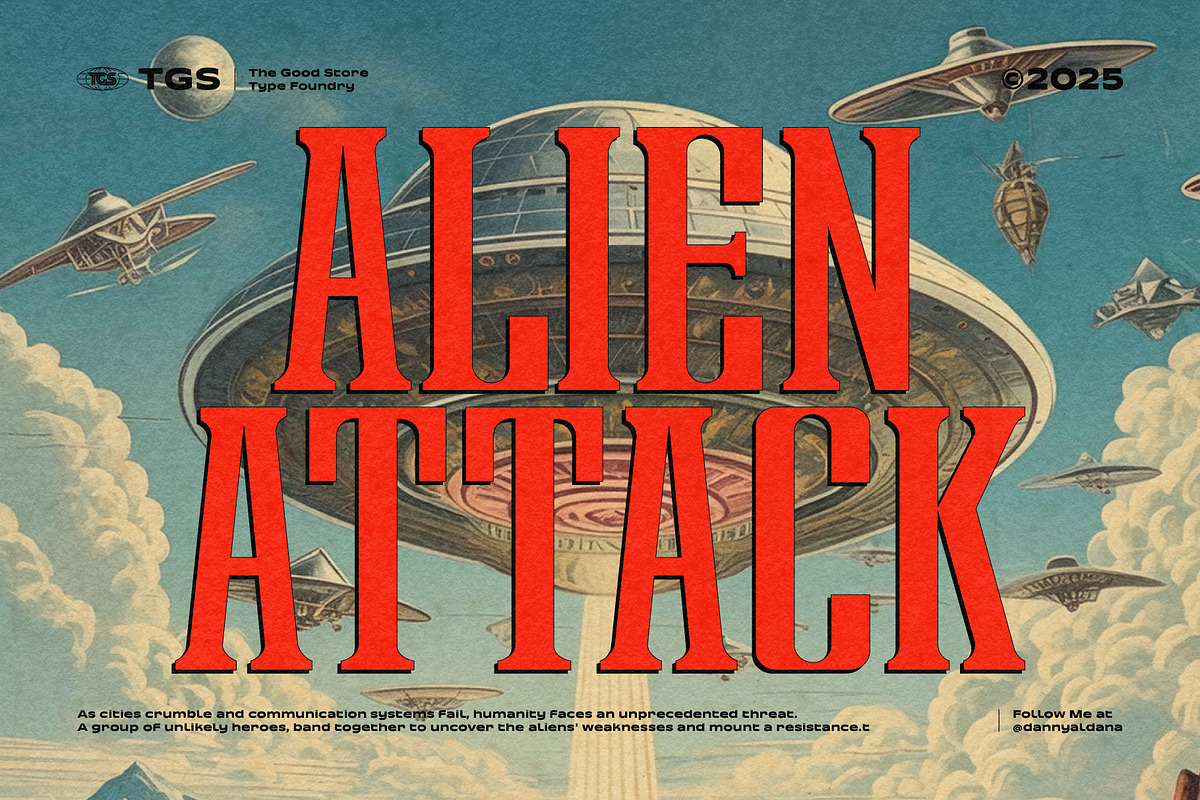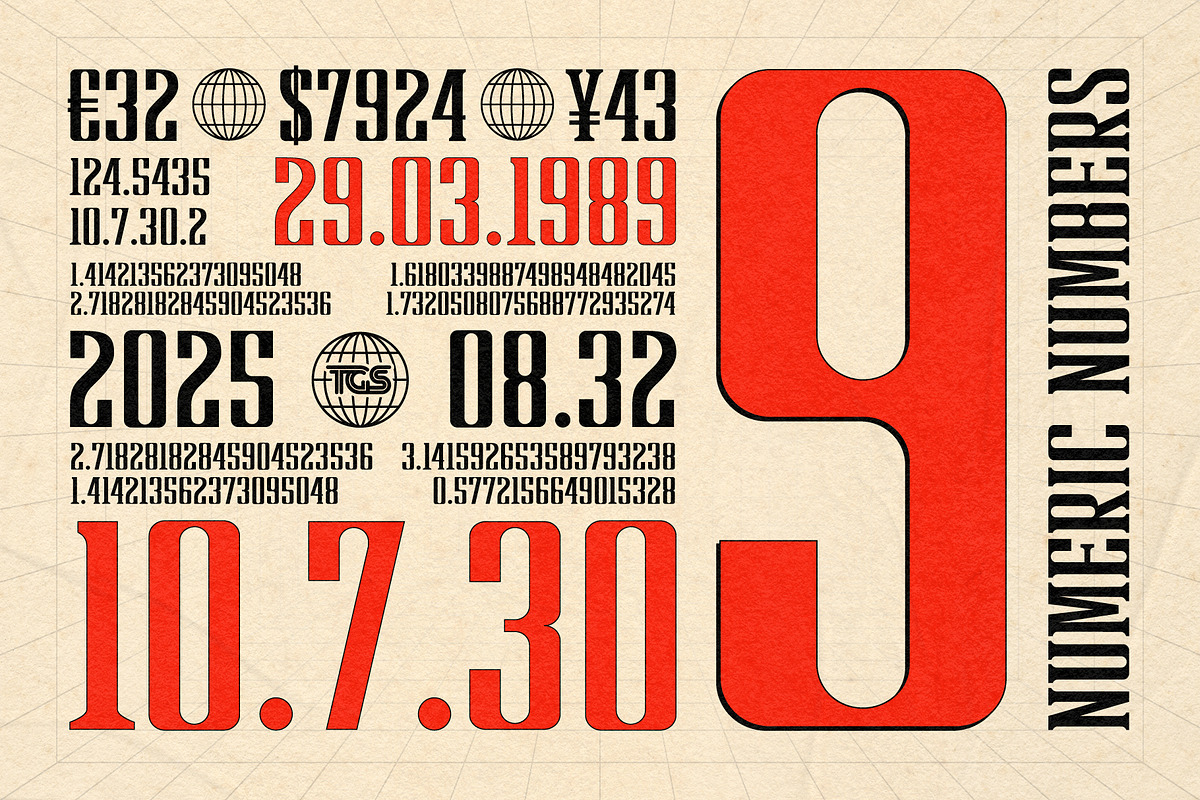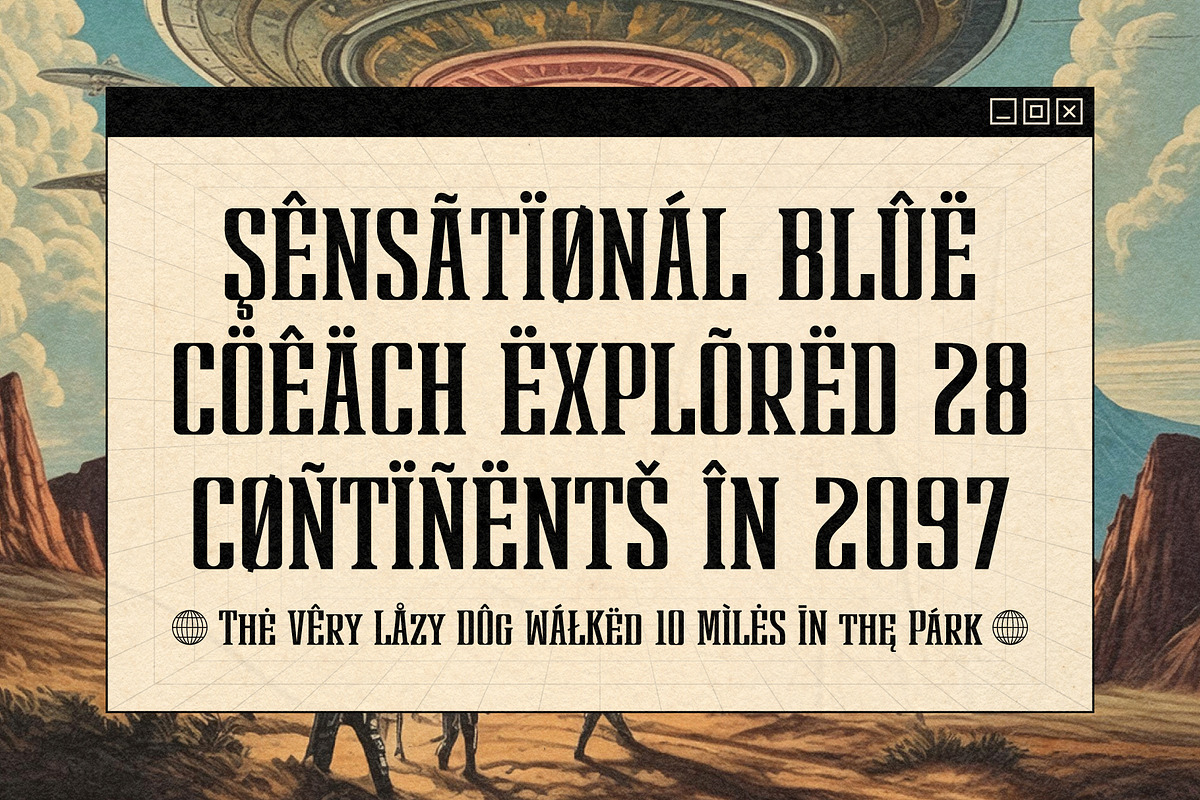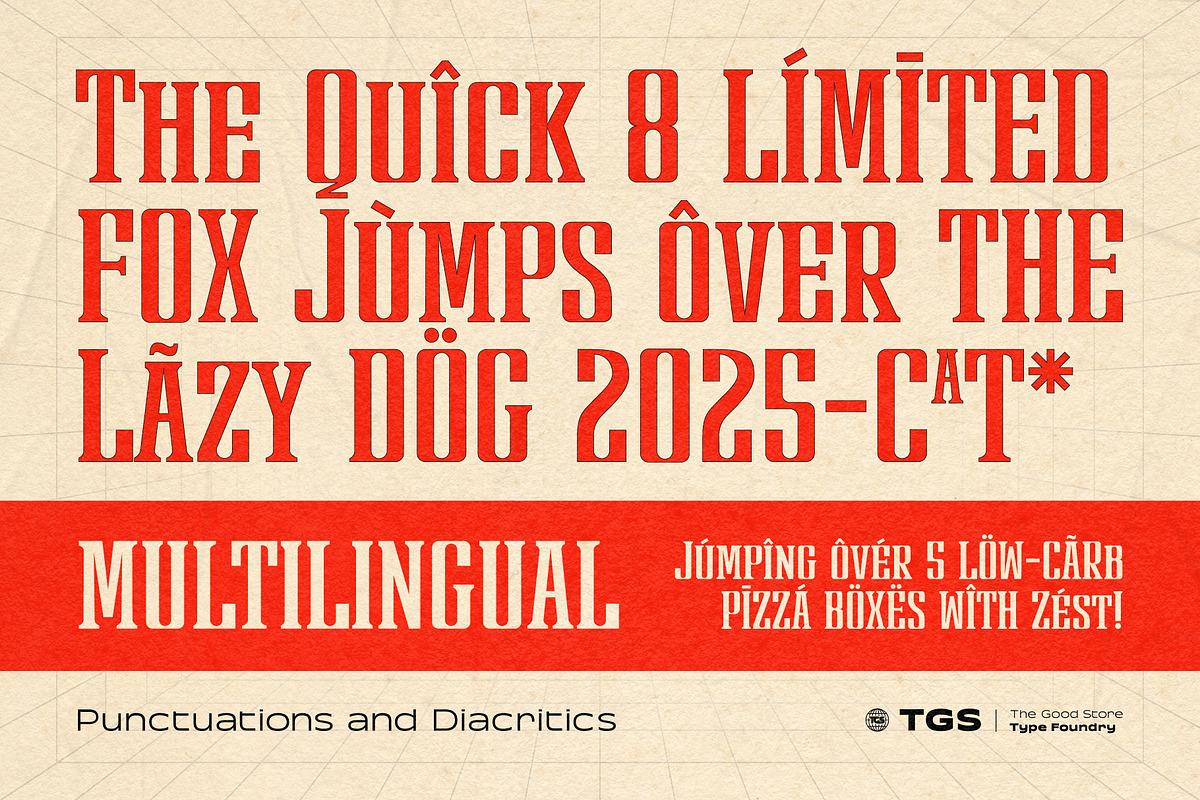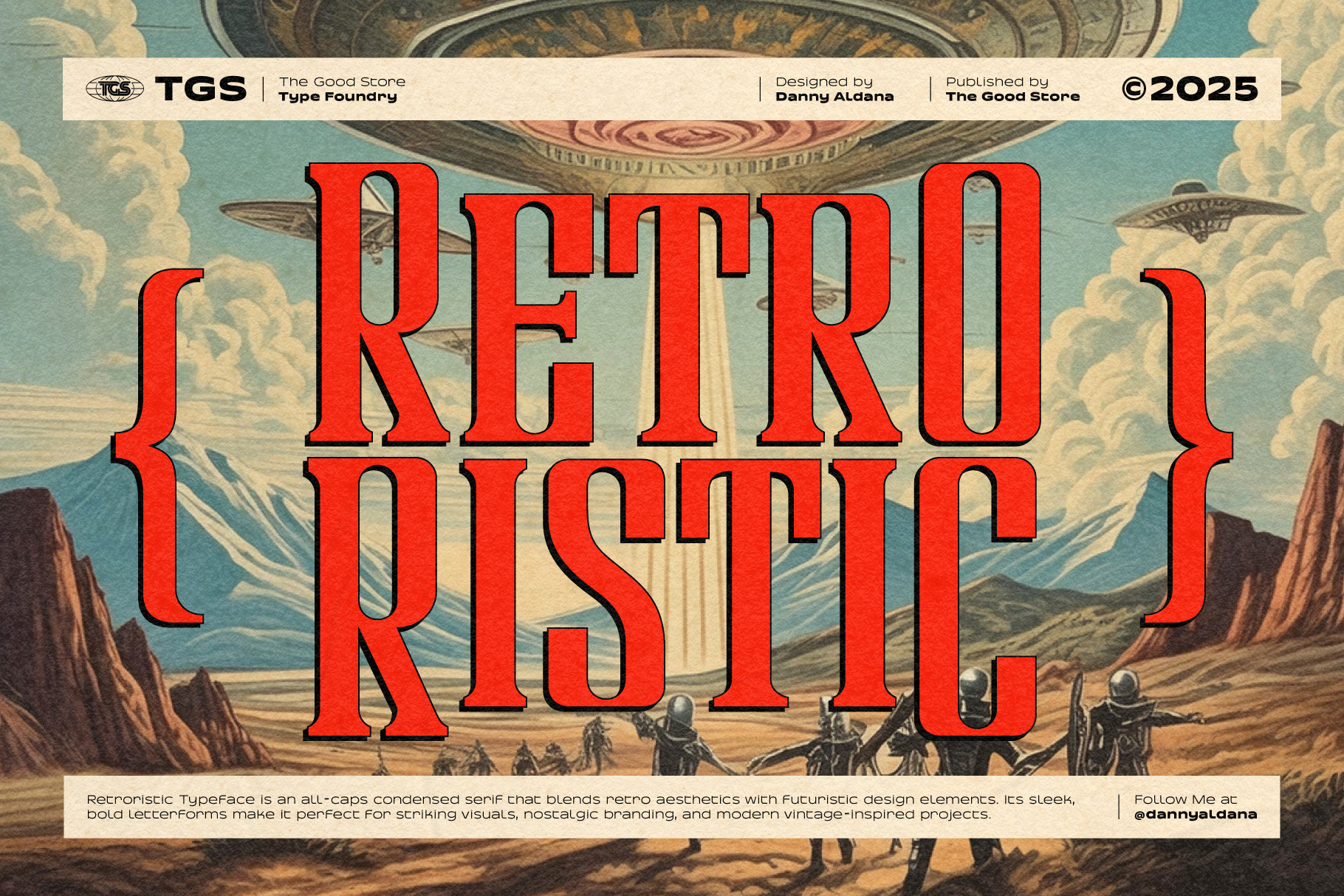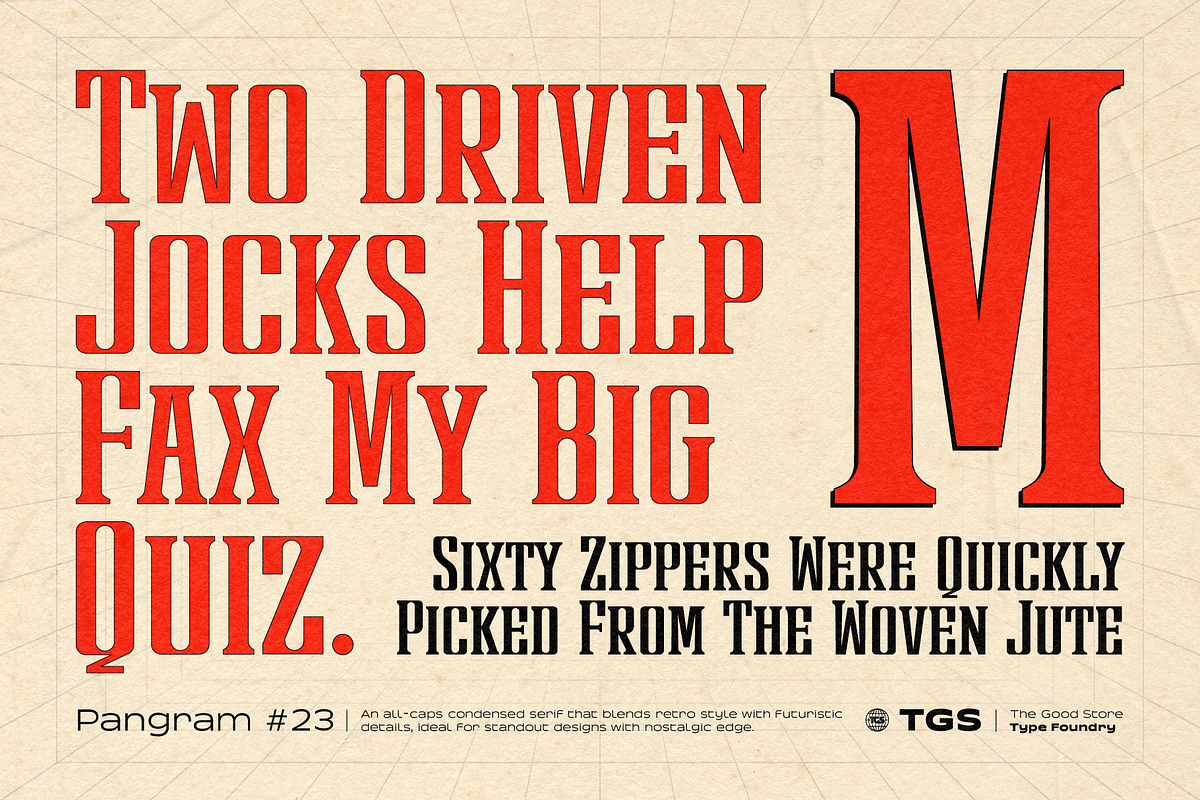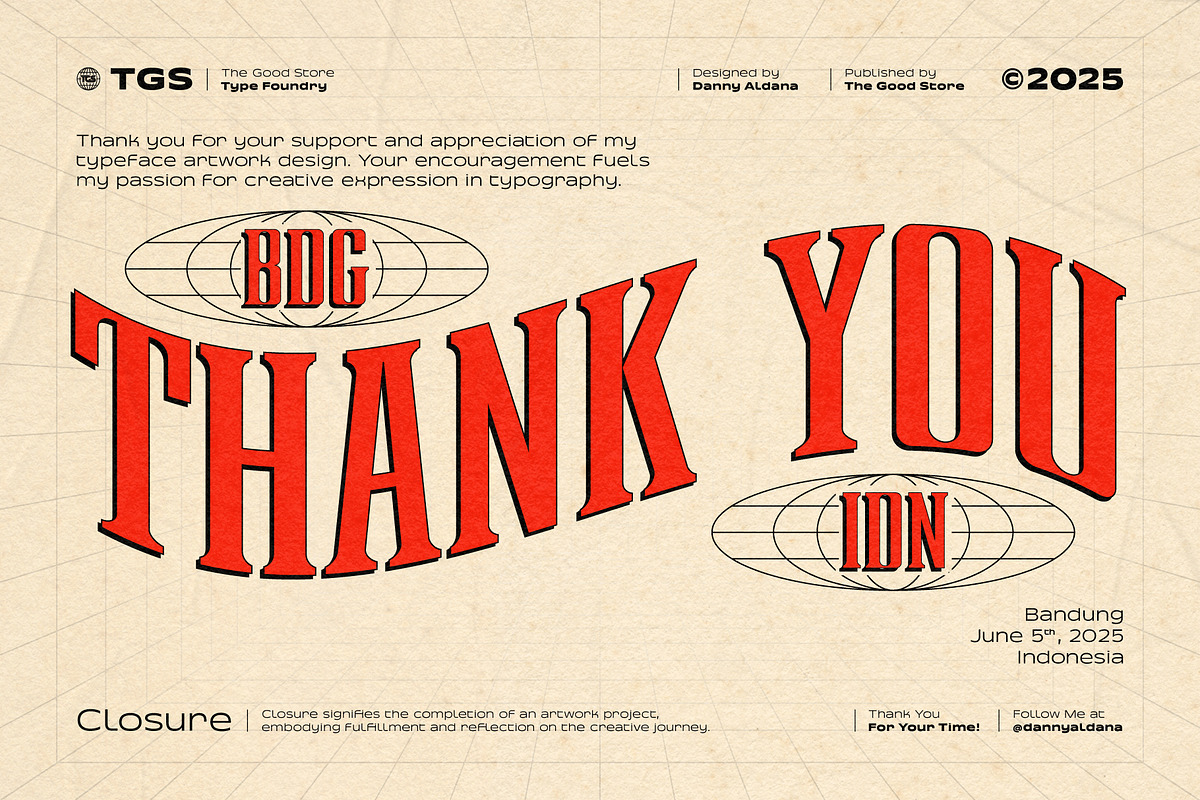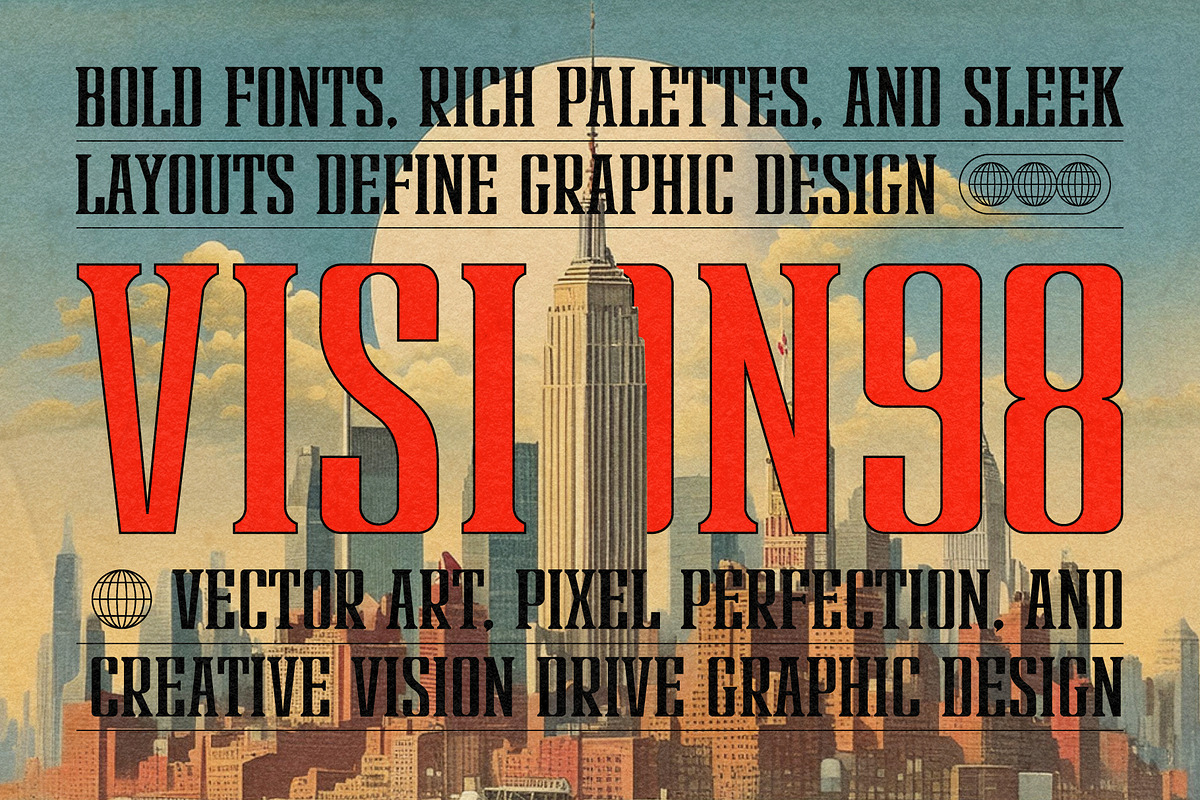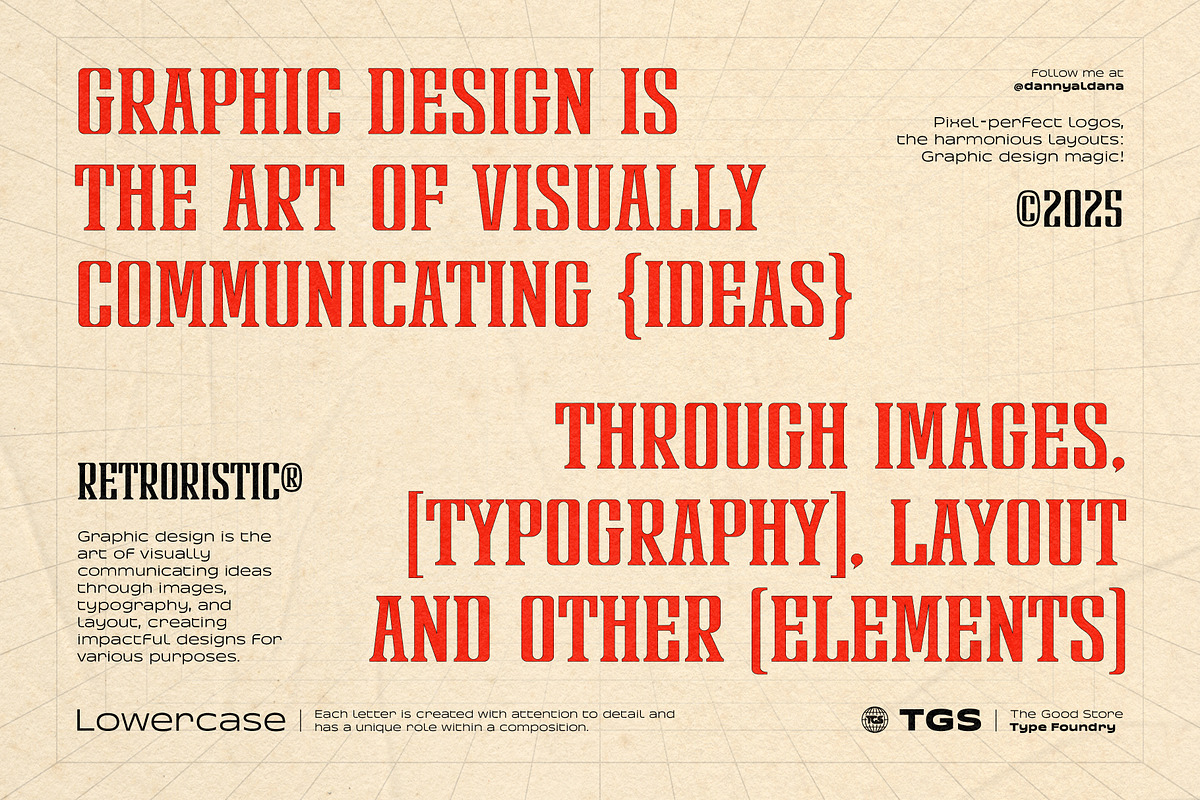
Retroristic Typeface
Retroristic Typeface visual style is a striking blend of retro-futurism and condensed serif elegance. The design fuses nostalgic, mid-century aesthetics with a modern sci-fi flair—evident in the bold, tall letterforms, sharp slab serifs, and dramatic vertical proportions. This style draws inspiration from vintage science fiction posters, old-school Americana, and speculative futuristic design, making it ideal for branding, posters, or editorial work that seeks a dramatic, stylish edge.